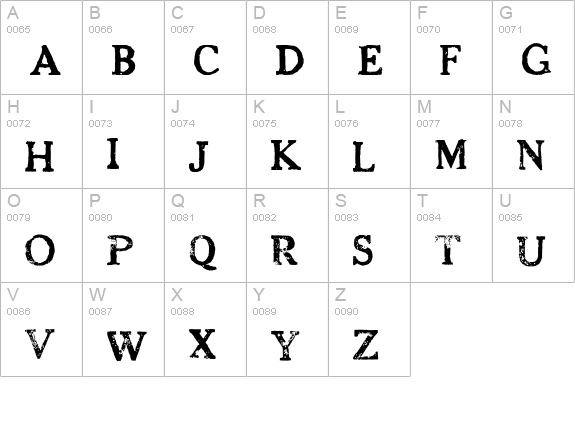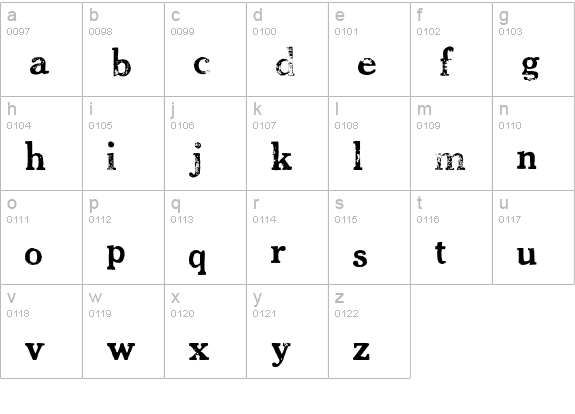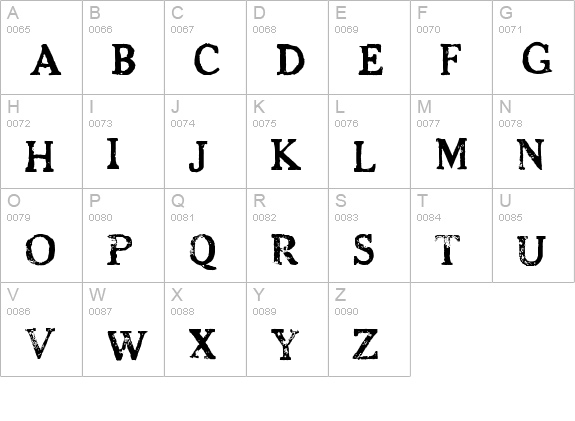
CheltPress Trial Font Details
CheltPress Trial font is a stunning display typeface that exudes elegance and sophistication. With its unique vintage-inspired design and intricate details, this font is sure to make a statement in any project. The CheltPress Trial font features a perfect balance of classic and modern elements, making it versatile and suitable for a wide range of design applications. Best of all, CheltPress Trial font is available for free download at FontsMarket.com. This means you can easily access this beautiful font and use it in your creative projects without any cost. Whether you're working on a branding project, wedding invitation, or poster design, CheltPress Trial font will add a touch of charm and style to your work. Don't miss out on the opportunity to enhance your designs with the timeless beauty of CheltPress Trial font. Download it for free today and elevate your creative projects to new heights.